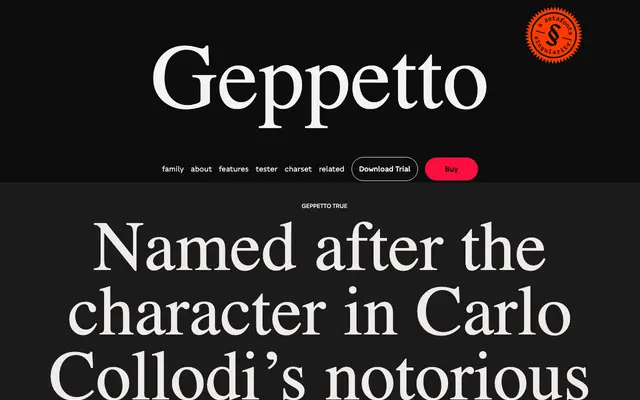
Geppetto
Zetafonts · Cosimo Lorenzo Pancini · 2022
A variable typeface revival of a condensed Tuscan wood type from the 1903 Tubbs catalog, expanding across a width axis named after the carpenter who made Pinocchio.
Rooted in a design probably originating with William Hamilton Page in 1859, Geppetto revives a condensed Tuscan letterform as a variable typeface that stretches along a width axis. The four named instances, True, Small Lie, Medium Lie and Big Lie, frame the project as a meditation on authenticity and what is preserved or lost when historical wood type is translated into digital form. It covers 152 languages across Latin and Greek scripts and includes discretionary ligatures, case-sensitive forms and four stylistic sets.
A revival of a condensed Tuscan wood type family from the 1903 Tubbs catalog, featuring the bifurcated serifs and ornamental character typical of 19th-century display wood type. Classified as display due to its clear decorative, large-scale heritage.